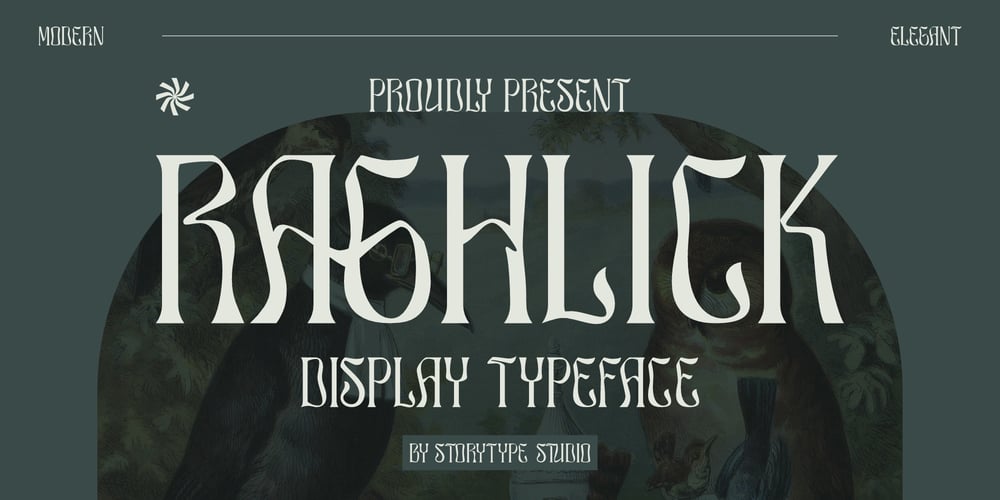
Raghlick Font Family was designed by Heru Utama Putra and published by Letterena Studios. Raghlick contains 2 styles and family package options. Raghlick is a modern and classic serif typeface with a unique style and modern look. This typeface is perfect for an elegant & luxury logo, book or movie title design, fashion brand, magazine, clothes, lettering, quotes, and so much more.